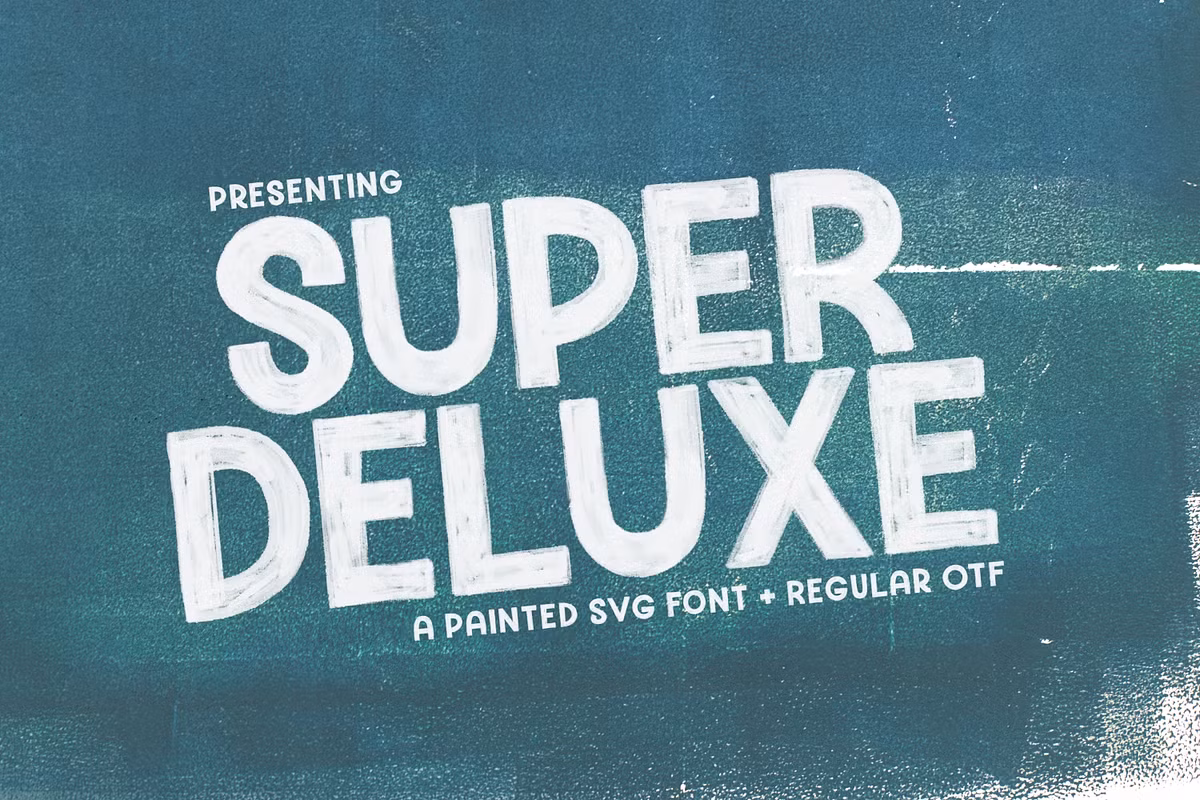
Super Deluxe Sans + SVG Version Free Download is a bold and modern sans-serif typeface designed with a clean, geometric style. With its strong lines and sleek form, this font is perfect for large-scale projects such as branding, logos, headlines, posters, and any design that requires a contemporary and impactful look.
The SVG version of Super Deluxe Sans adds an extra dimension to your designs, as it includes color, gradient, and textured elements, allowing for more creative possibilities. This feature is perfect for digital artwork, web design, and other modern creative projects where typography needs to stand out with flair and personality.